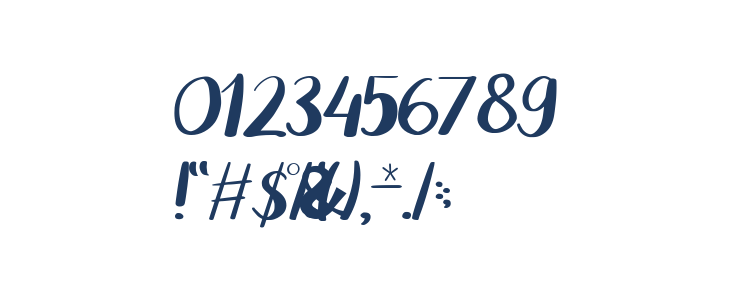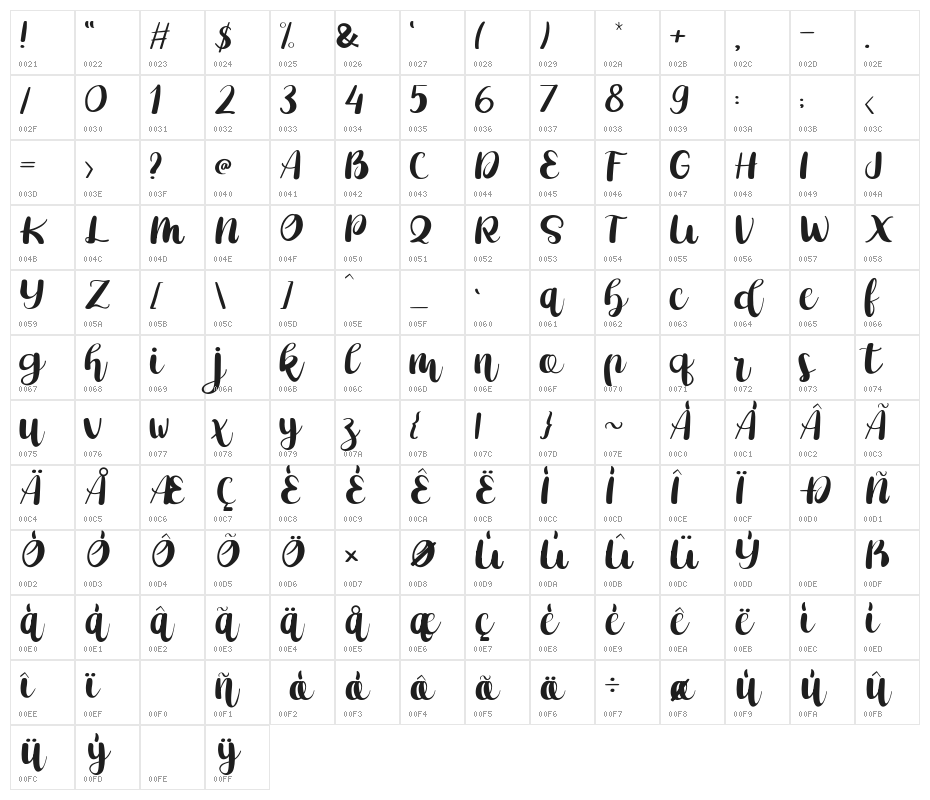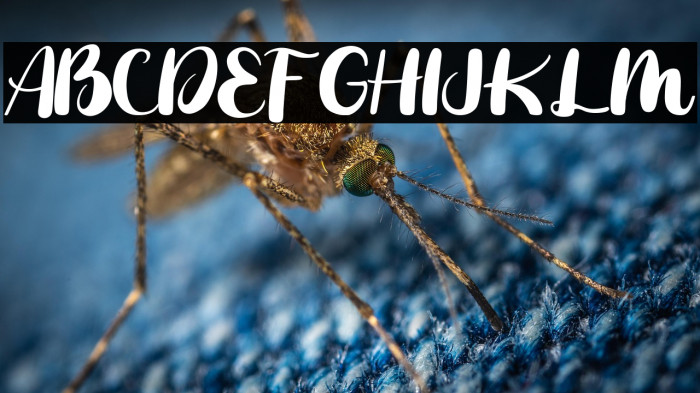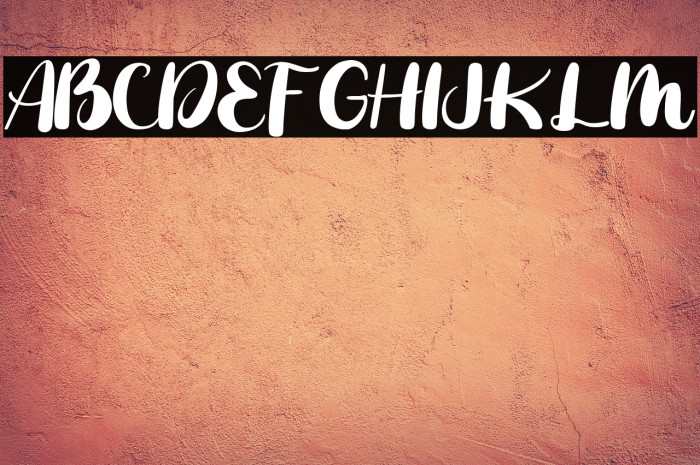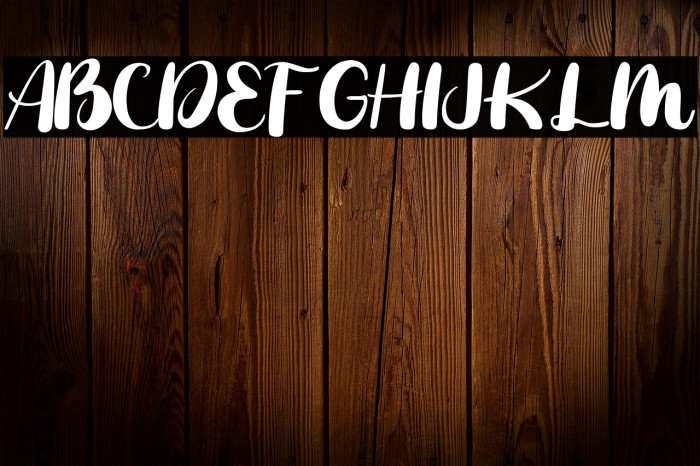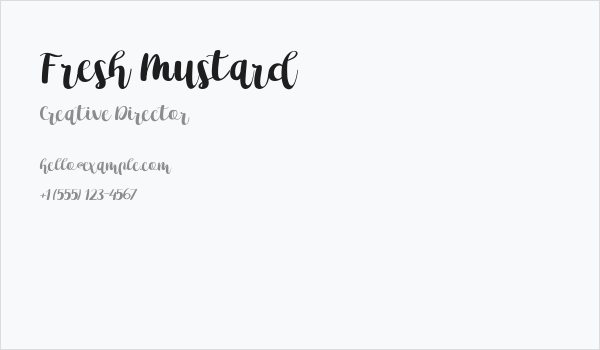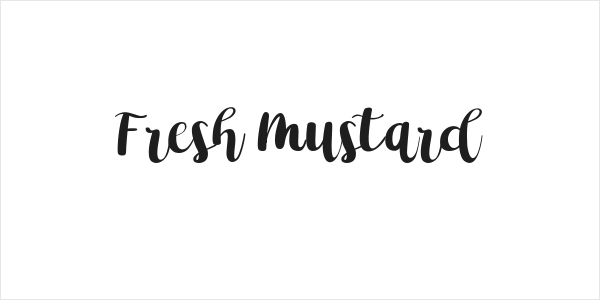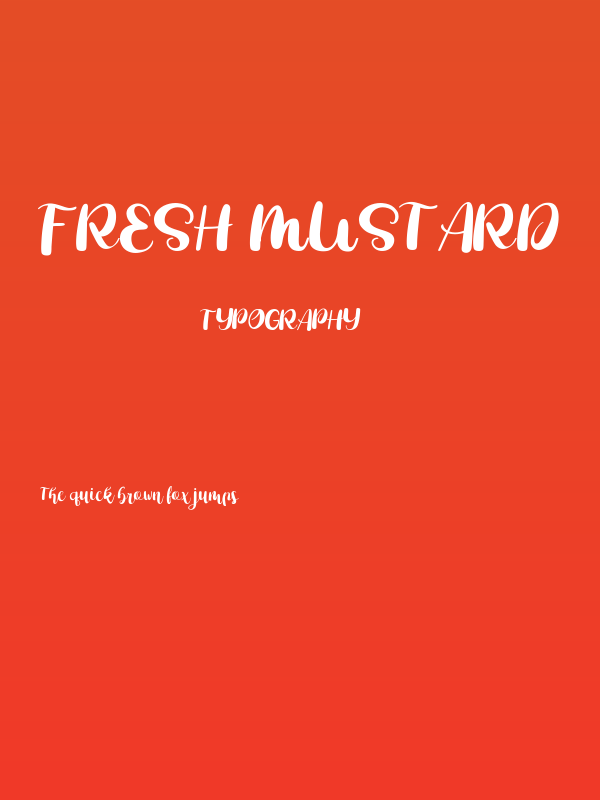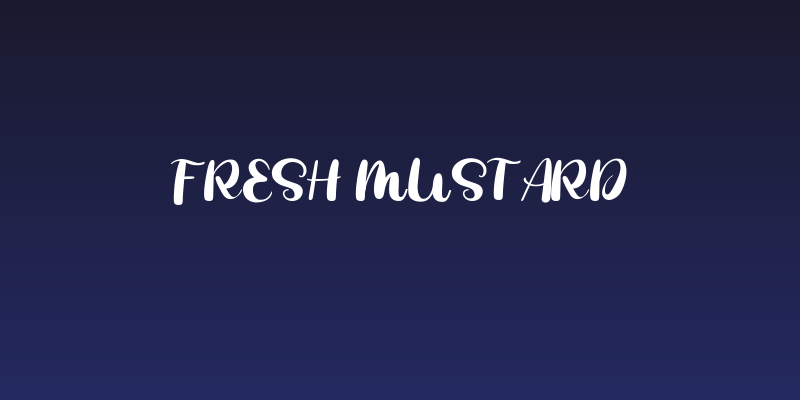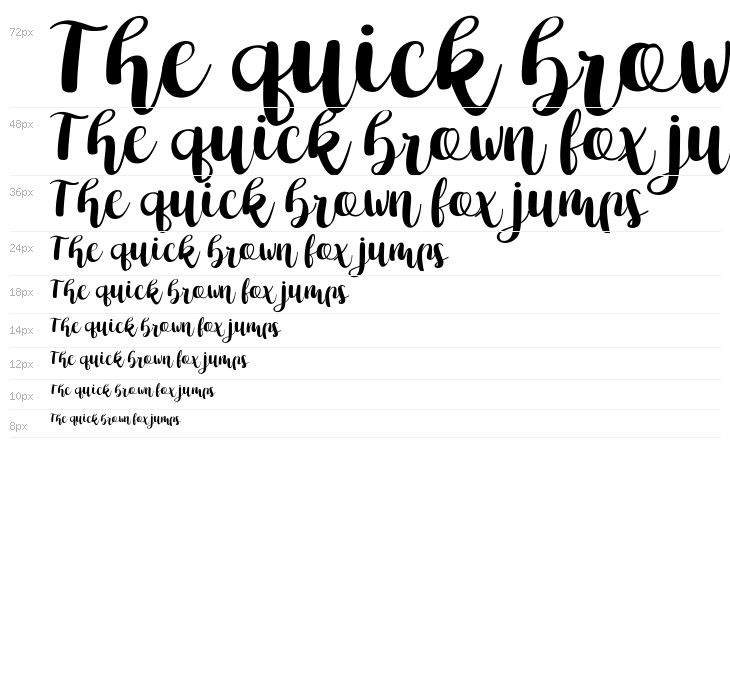
Fresh Mustard Font
Fresh Mustard Description
This font features a bold, flowing script style that combines elegance with a playful touch. The characters are interconnected, creating a sense of continuity and movement. The uppercase letters are tall and slightly narrow, while the lowercase letters maintain a consistent height, adding to the font's readability. The numbers are designed with the same fluidity, ensuring they blend seamlessly with the alphabet. Special characters are crafted with attention to detail, complementing the overall aesthetic. This font's dynamic and lively appearance makes it suitable for a variety of creative applications.